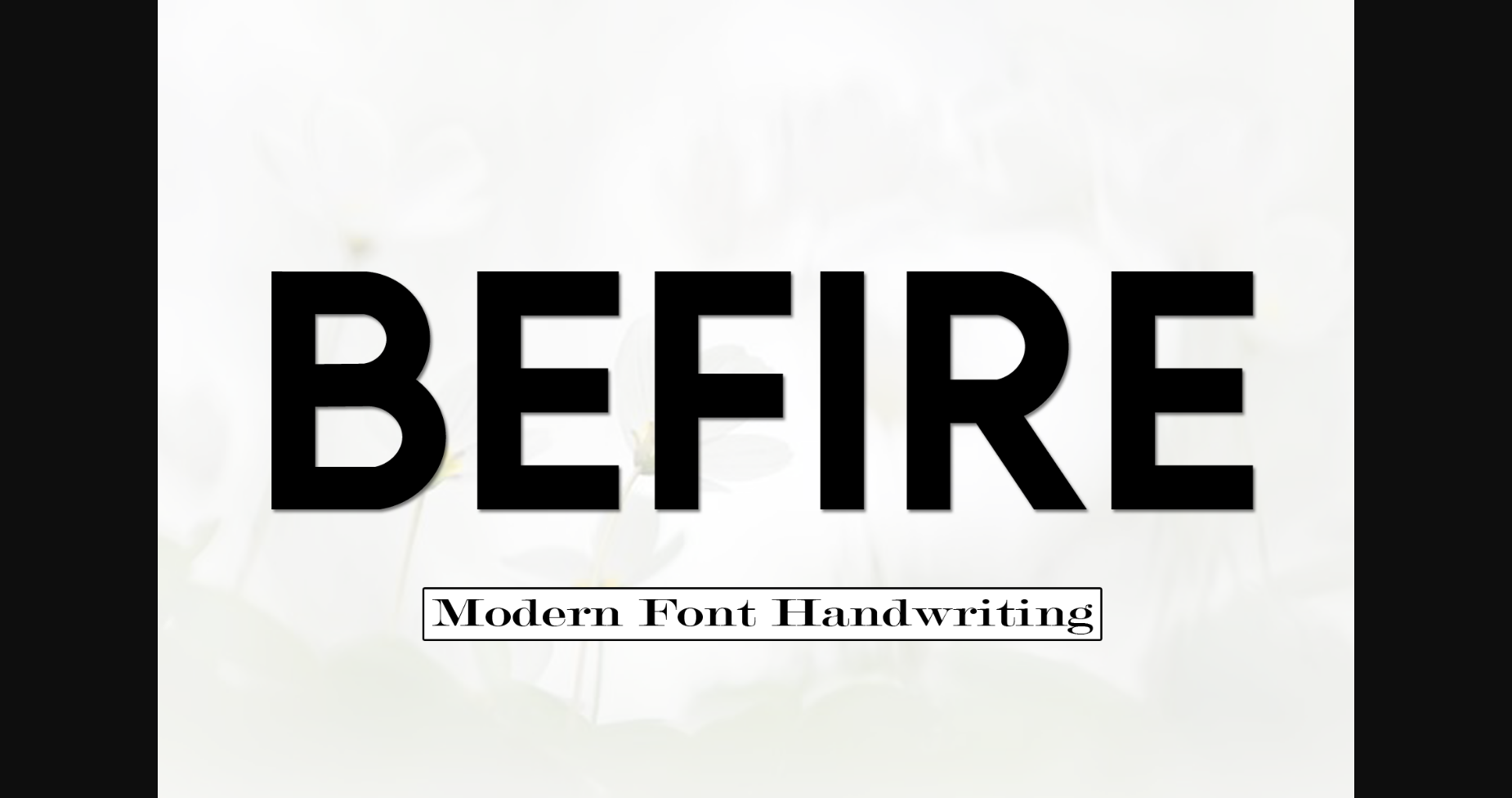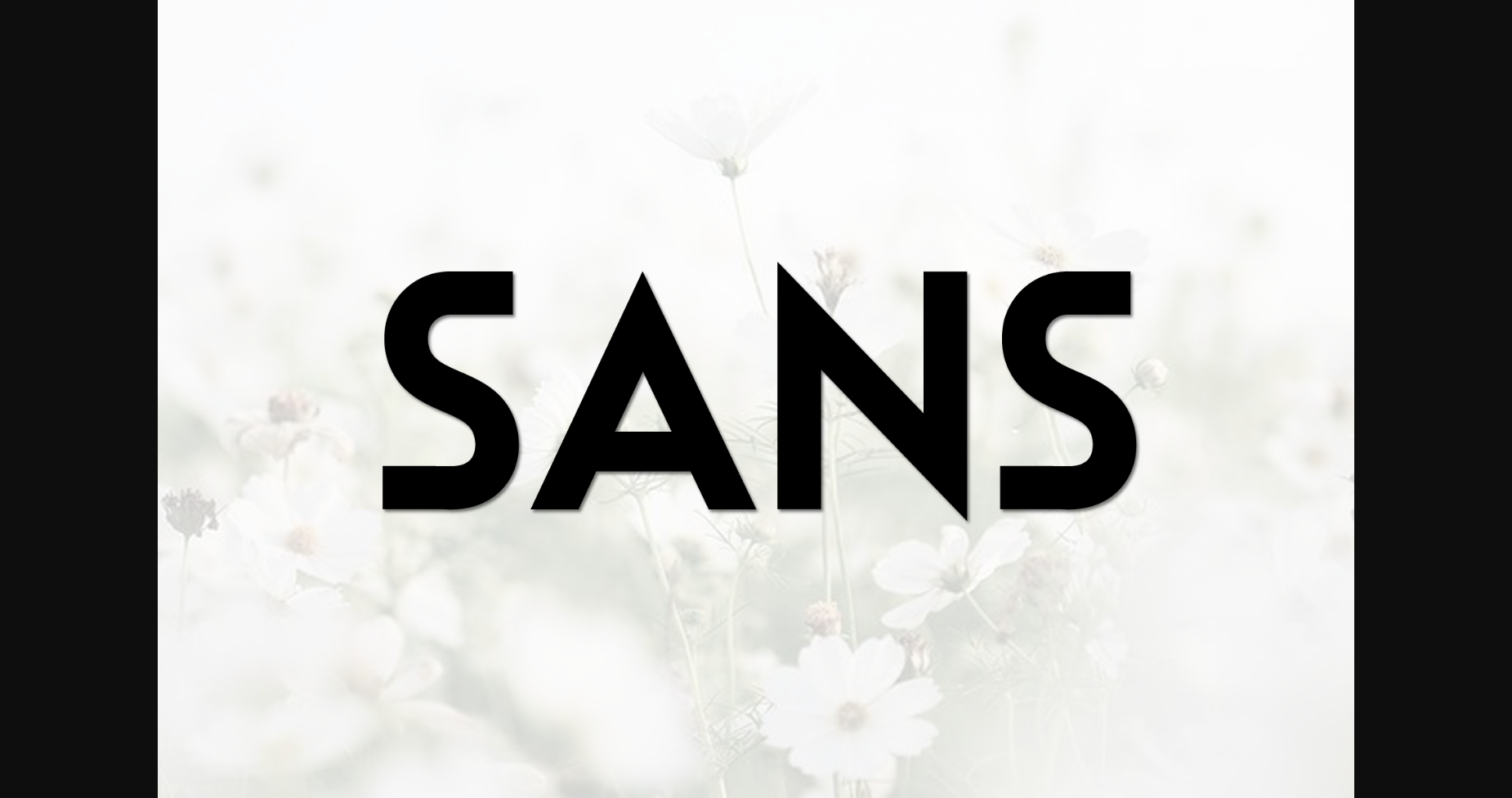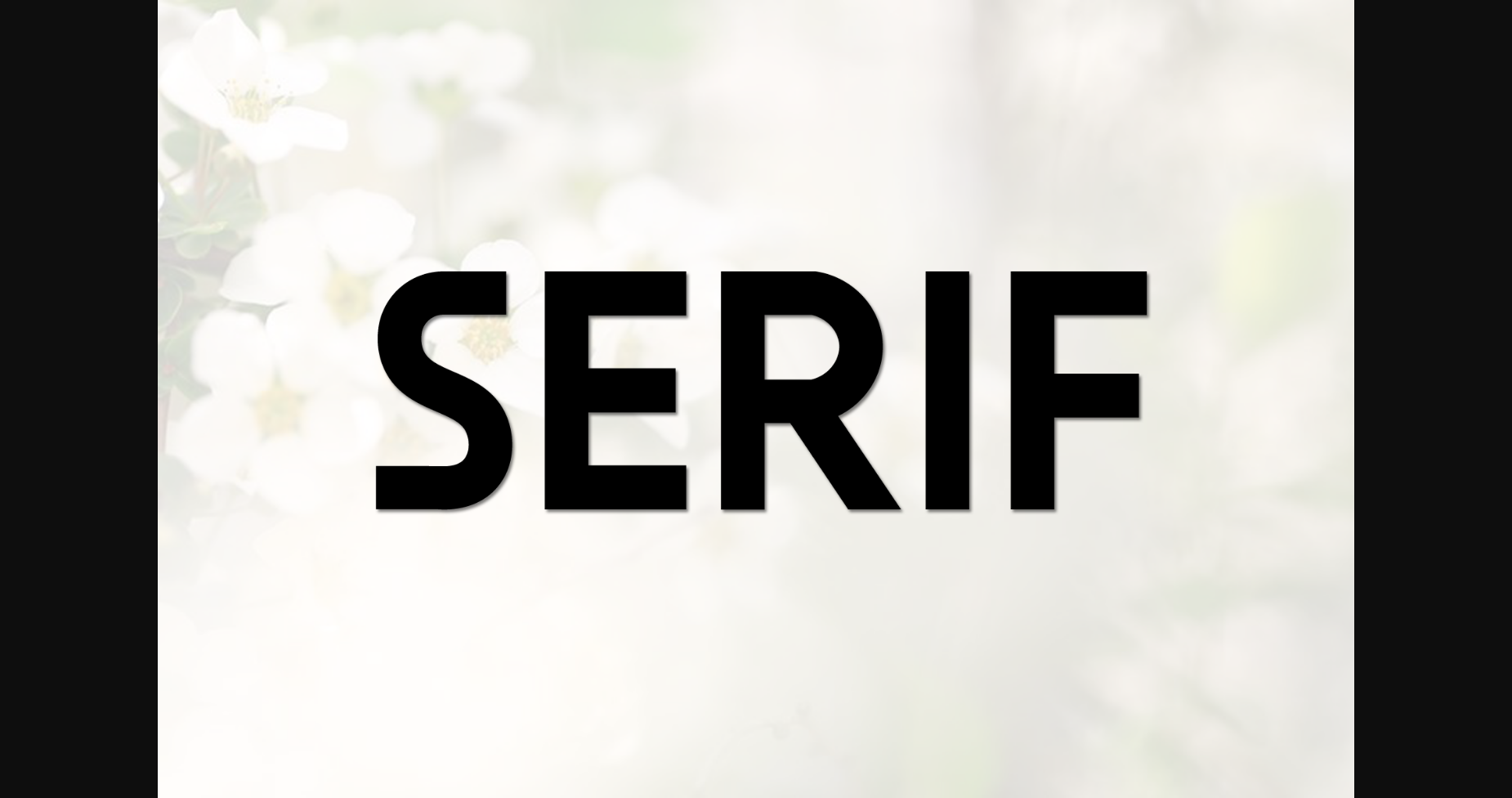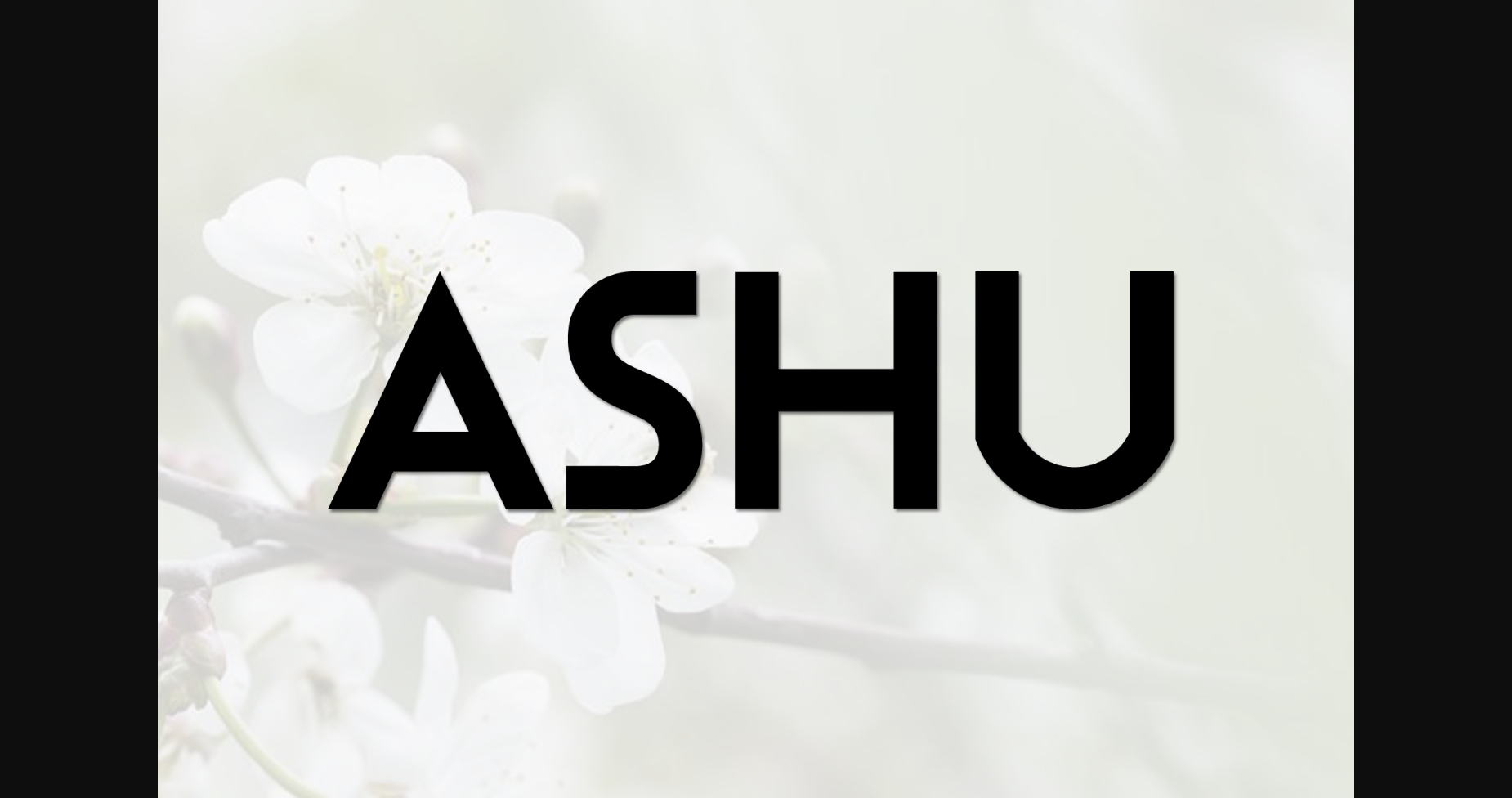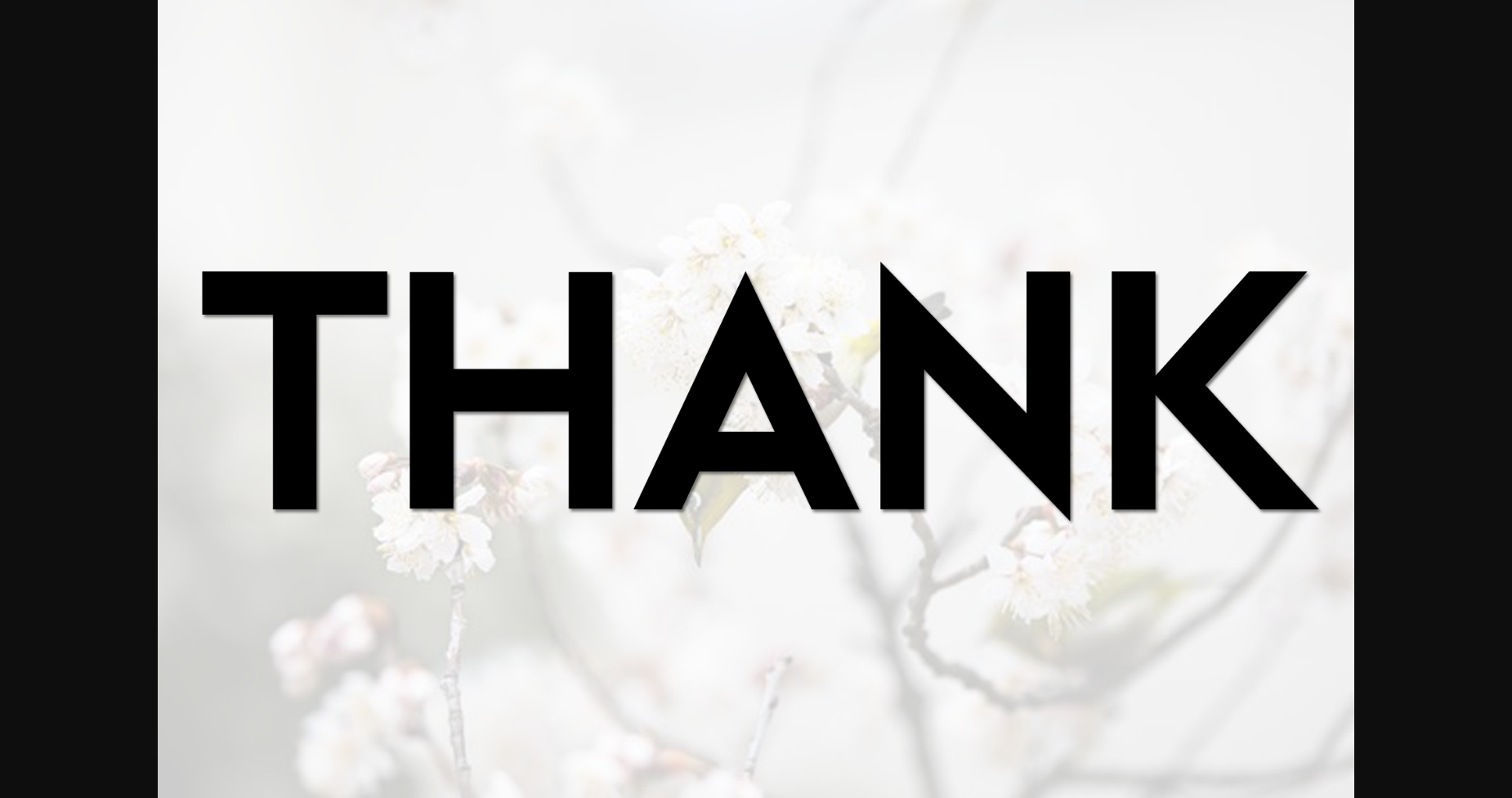
About Befire Font
Befire is a classic and simple sans serif font. It is suitable for logotypes, headline fonts in corporate identity, brand identity, apparel industry, posters, music, movies, games, magazines, books, comics, YouTube, Instagram, websites, or any of your creative design projects